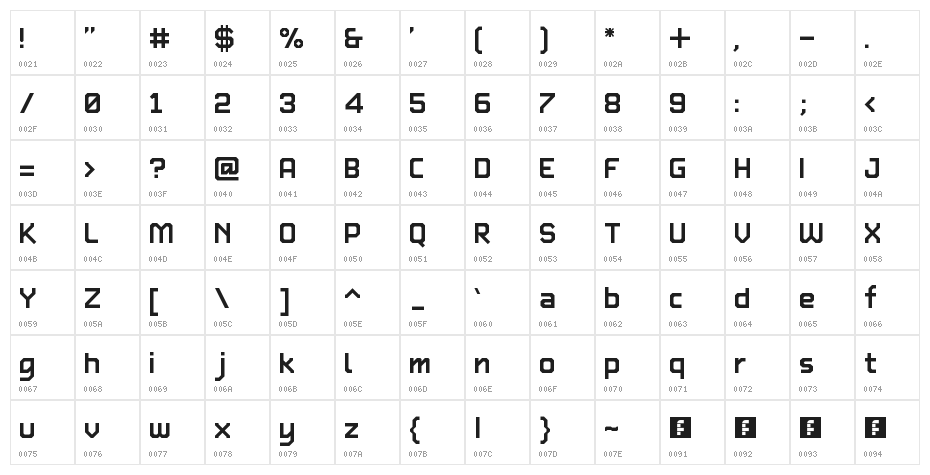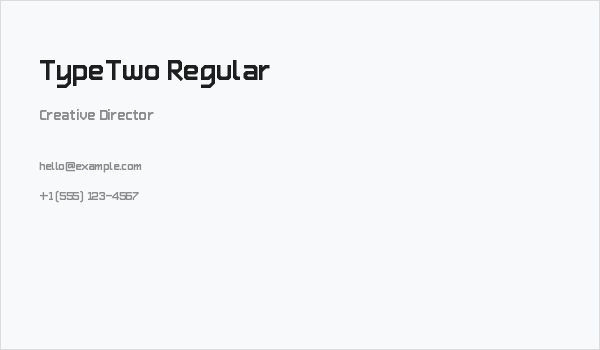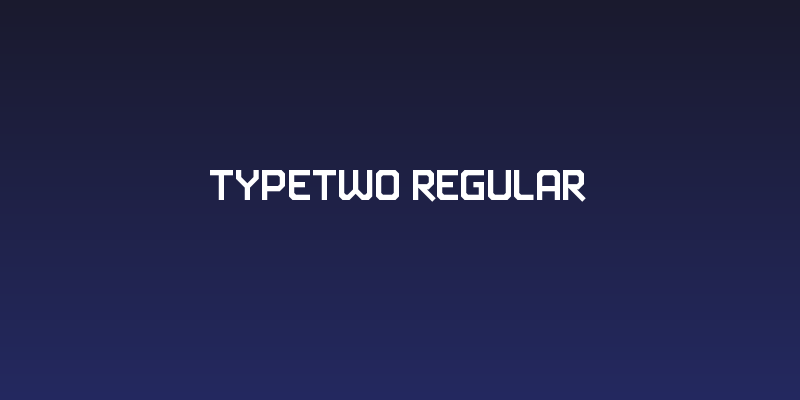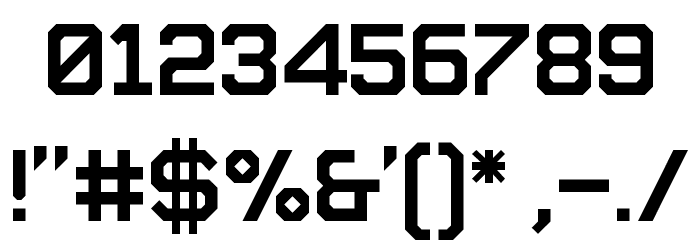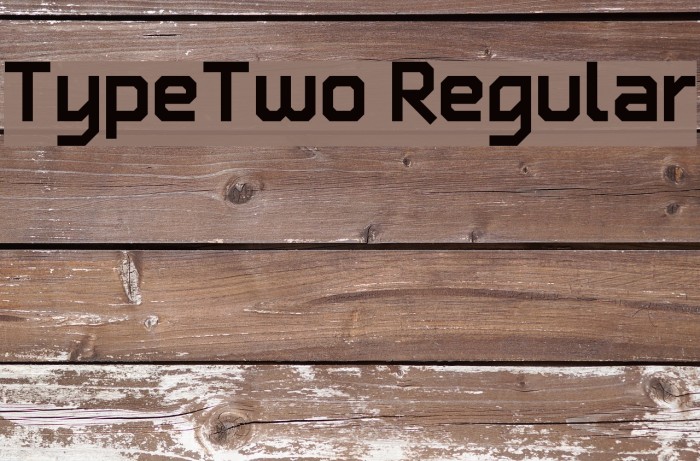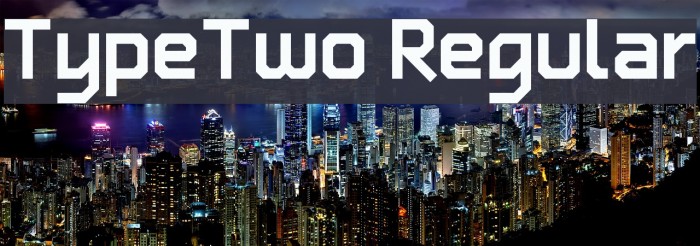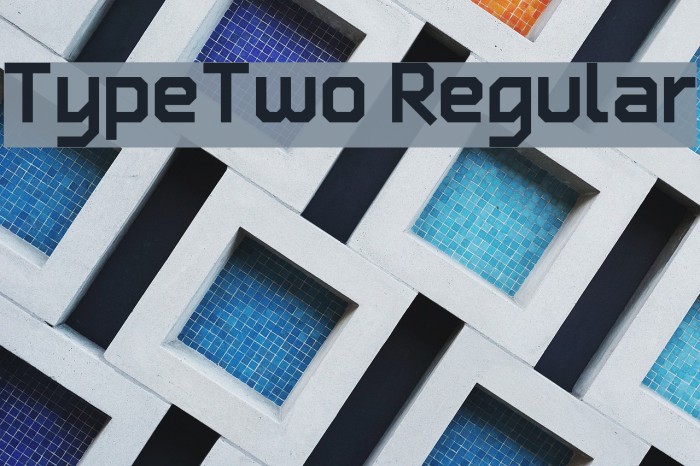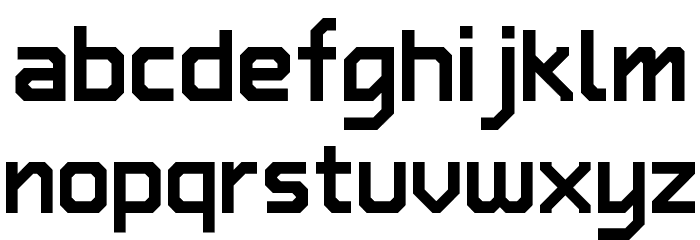
TypeTwo Regular Font
TypeTwo Regular Description
This font features a geometric and angular design, characterized by its bold, block-like appearance. The uppercase and lowercase letters maintain a consistent structure, with sharp edges and a uniform thickness throughout. The numerals and special characters follow the same design principles, ensuring a cohesive look across all glyphs. The font's style is modern and somewhat futuristic, making it suitable for digital interfaces and technology-related projects. Its strong presence and clear legibility make it ideal for headlines and display purposes, where impact is essential.
TYPETWO-REGULAR UPPERCASE
TYPETWO-REGULAR LOWERCASE
TYPETWO-REGULAR OTHER CHARS
| Use Case | Headlines, Logos, Display text |
| Proposed Projects | Ideal for technology branding, digital interfaces, video game graphics, and futuristic-themed posters. |